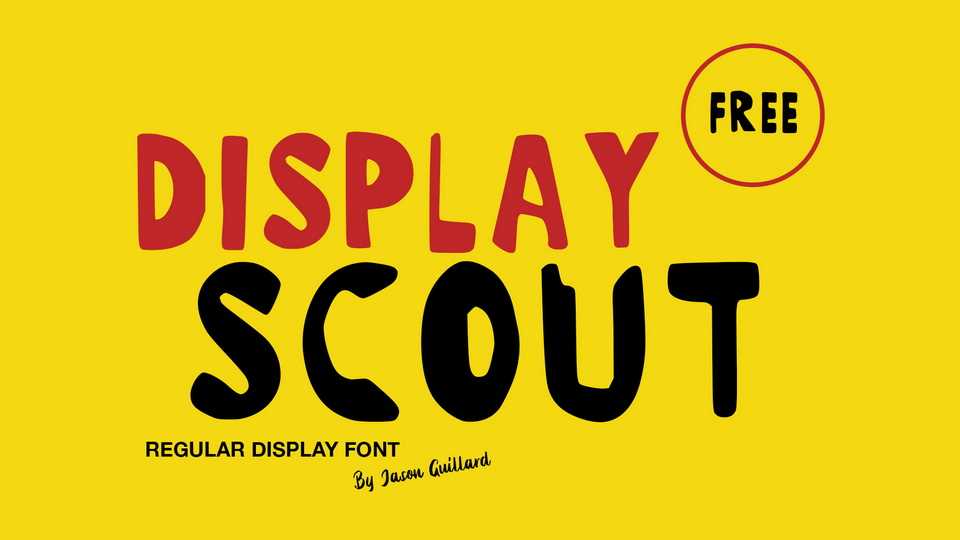
Download Display Scout font, a dynamic, bold uppercase display typeface that is rich with personality. Featuring high stroke contrast, unique cut-out elements, and a number of alternate characters, Display Scout is perfect for large text.
Designer: Jason Guillard